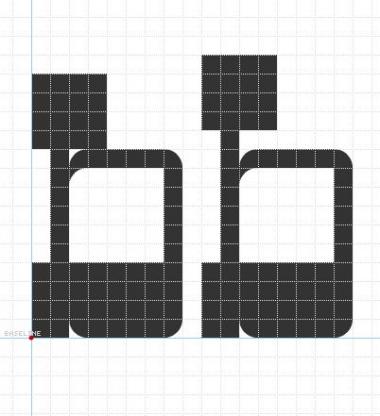
Bottoms
Bottoms is a simple slab serif with no descenders. I am having a bit of trouble with the lowercase b, g, d, and slashes and whatnot.
great- a twist on the cliche western slab